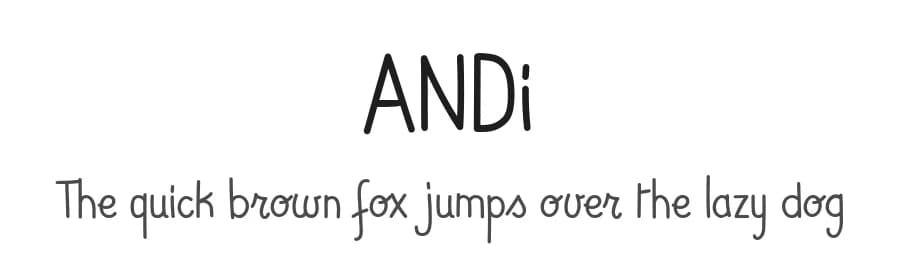
About ANDi Font
ANDi is a hand-drawn typography with a touch of « je ne sais quoi ». It was created with legibility in mind, It has upper and lowercase characters with accents and numbers.
ANDi Font